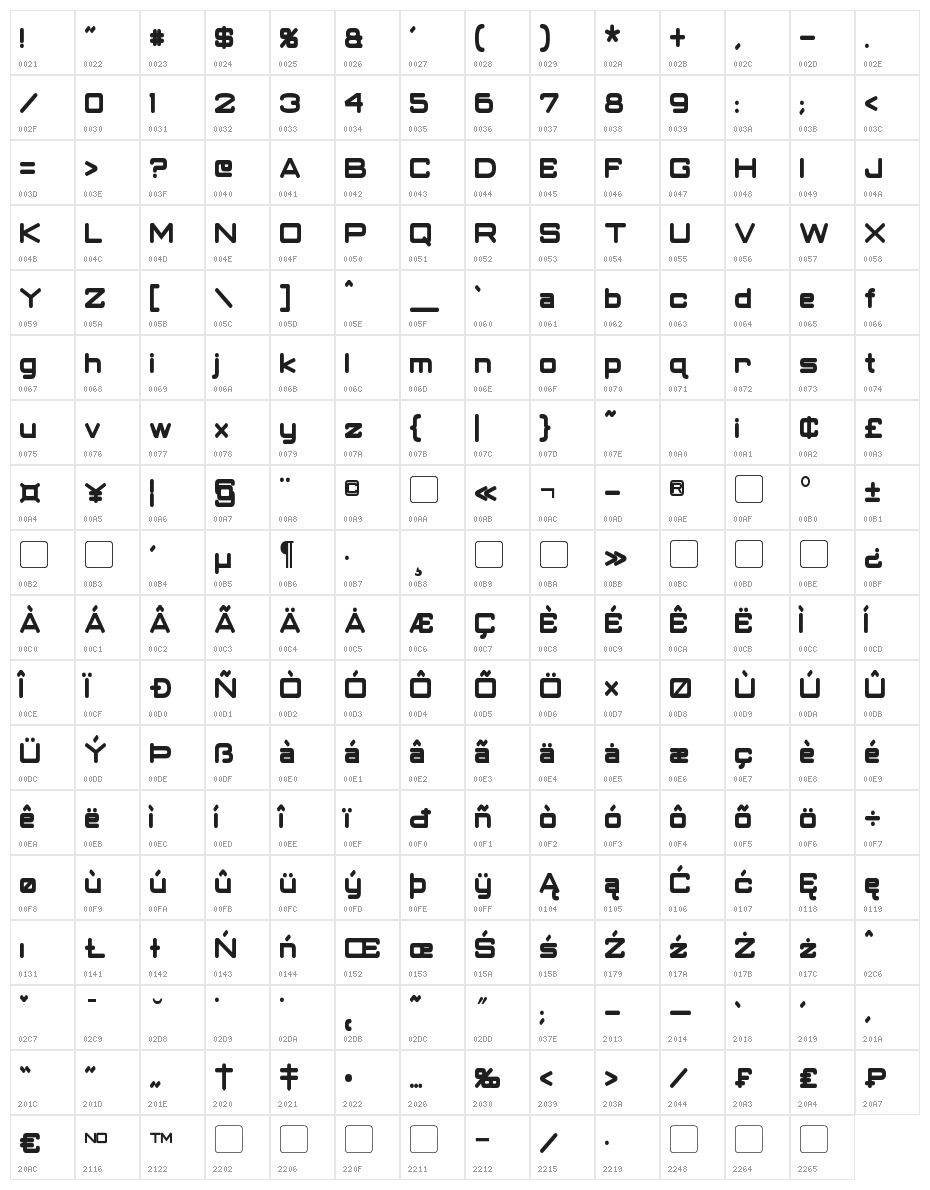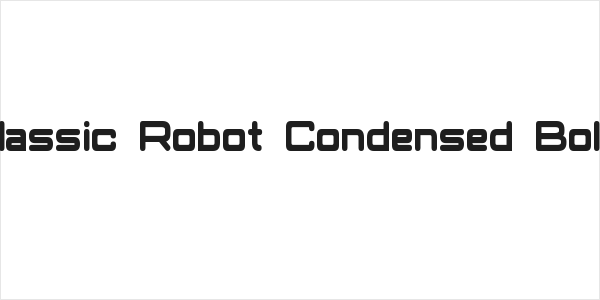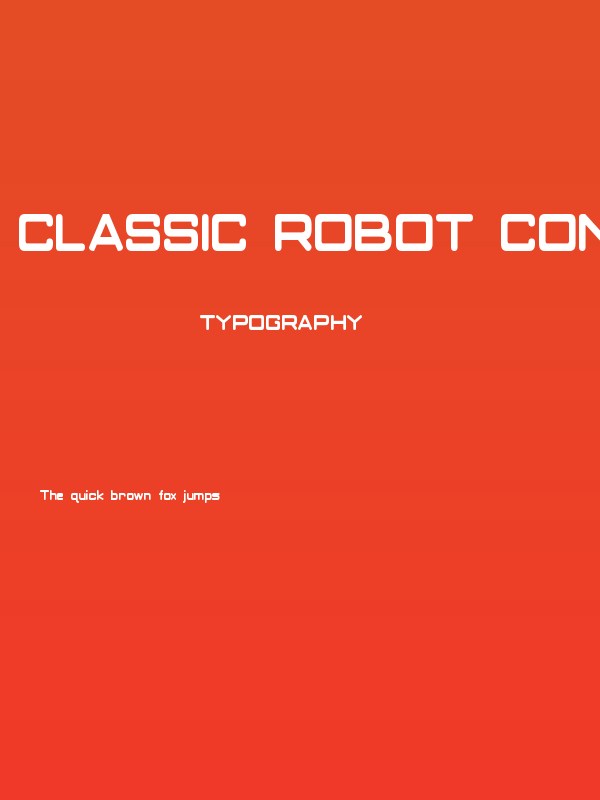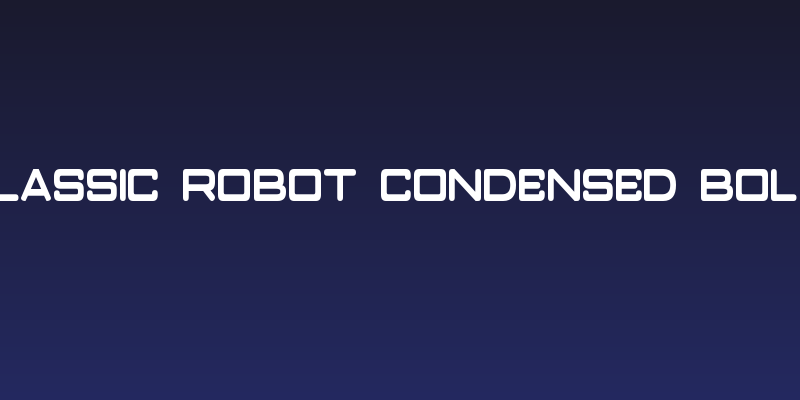
Classic Robot Condensed Bold Font
Classic Robot Condensed Bold Description
This font features a futuristic and mechanical aesthetic, characterized by its bold and condensed letterforms. The geometric shapes and rounded edges give it a modern and sleek appearance, reminiscent of digital or robotic themes. The uppercase and lowercase letters maintain a consistent style, with uniform stroke widths that contribute to its boldness. The numerals and special characters are designed to match the overall theme, ensuring a cohesive look across all elements. Its condensed nature allows for efficient use of space, making it suitable for various design applications.
| Proposed Projects | Ideal for technology branding, sci-fi posters, video game titles, and digital interfaces. |